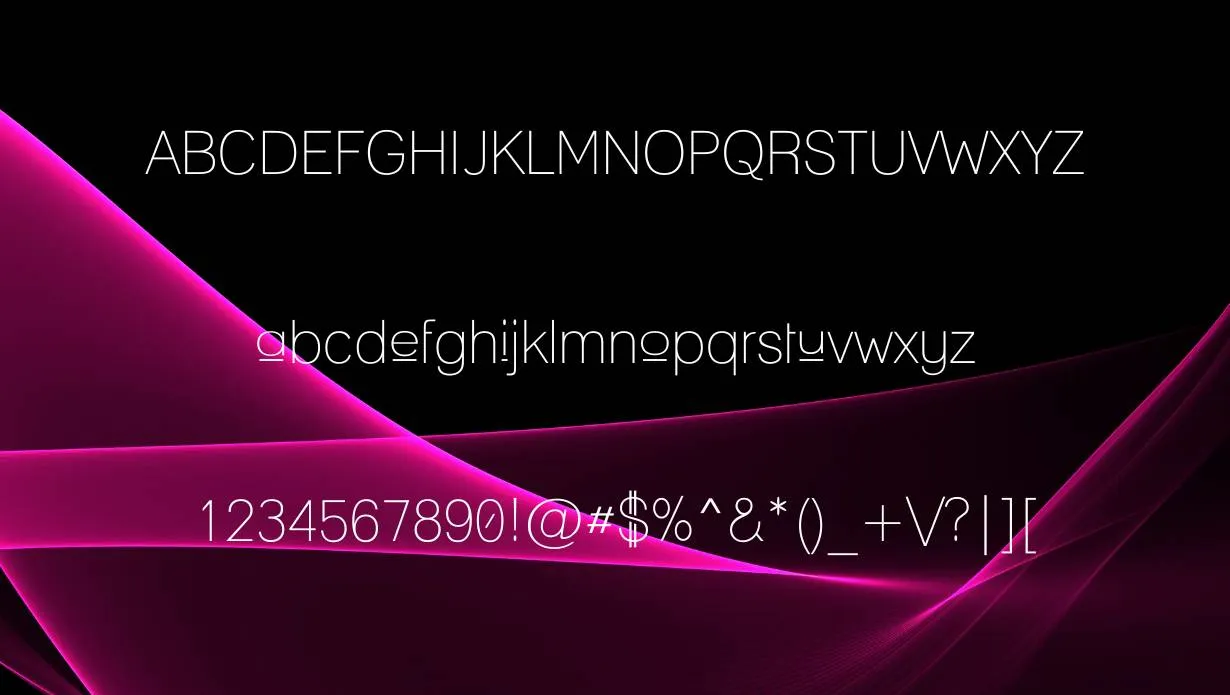
Lane Font’s design is adaptable and easy to read, making it suitable for a variety of design uses.
Its clean lines and modern style make it a practical choice for branding, advertising, web design, and packaging, providing a contemporary and well-organized aesthetic to your projects. Incorporating this font alongside the unscreen font is the key to creating a one-of-a-kind and attention-grabbing design.